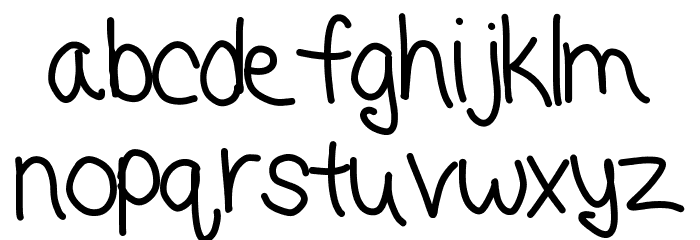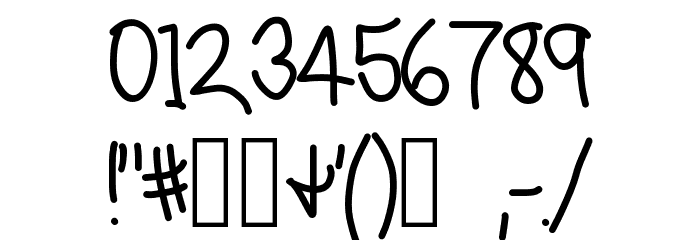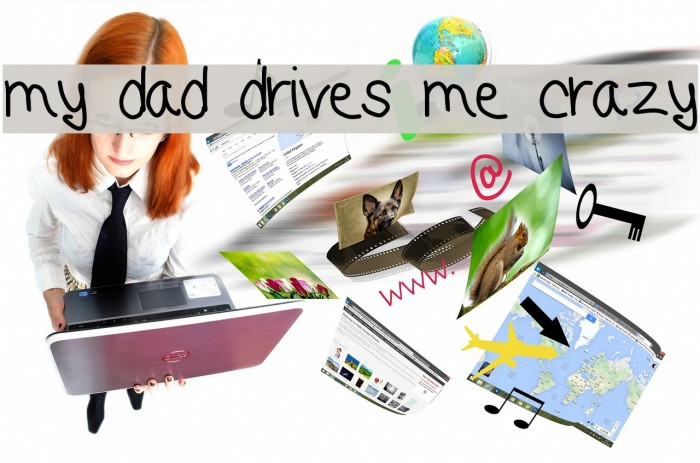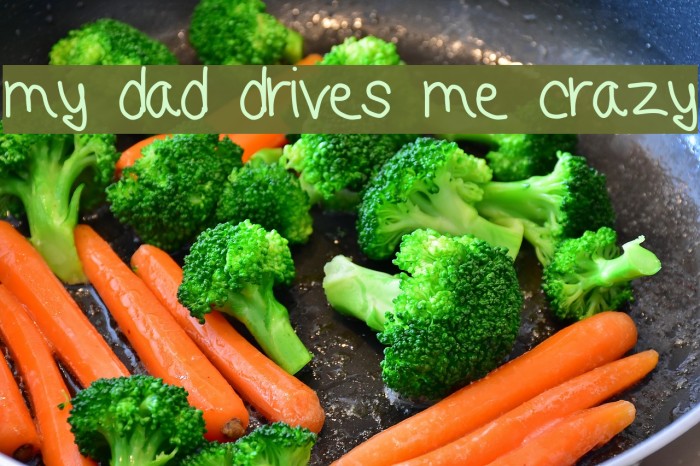
my dad drives me crazy Font
This playful and whimsical font features a handwritten style with a casual and informal appearance. The characters are slightly irregular, giving it a personal and friendly touch. The strokes are consistent in width, with a smooth flow that mimics natural handwriting. The uppercase letters are bold and prominent, while the lowercase letters maintain a cohesive look with a slight slant, adding to the dynamic feel. The numbers and special characters are well-integrated, maintaining the overall aesthetic. This font is perfect for projects that require a personal, approachable, and fun vibe.
- Proposed Projects: Ideal for greeting cards, children's books, personal blogs, and informal branding.
- Overall Style: Casual, Playful
- Use Case: Headlines, Informal Text, Personal Projects